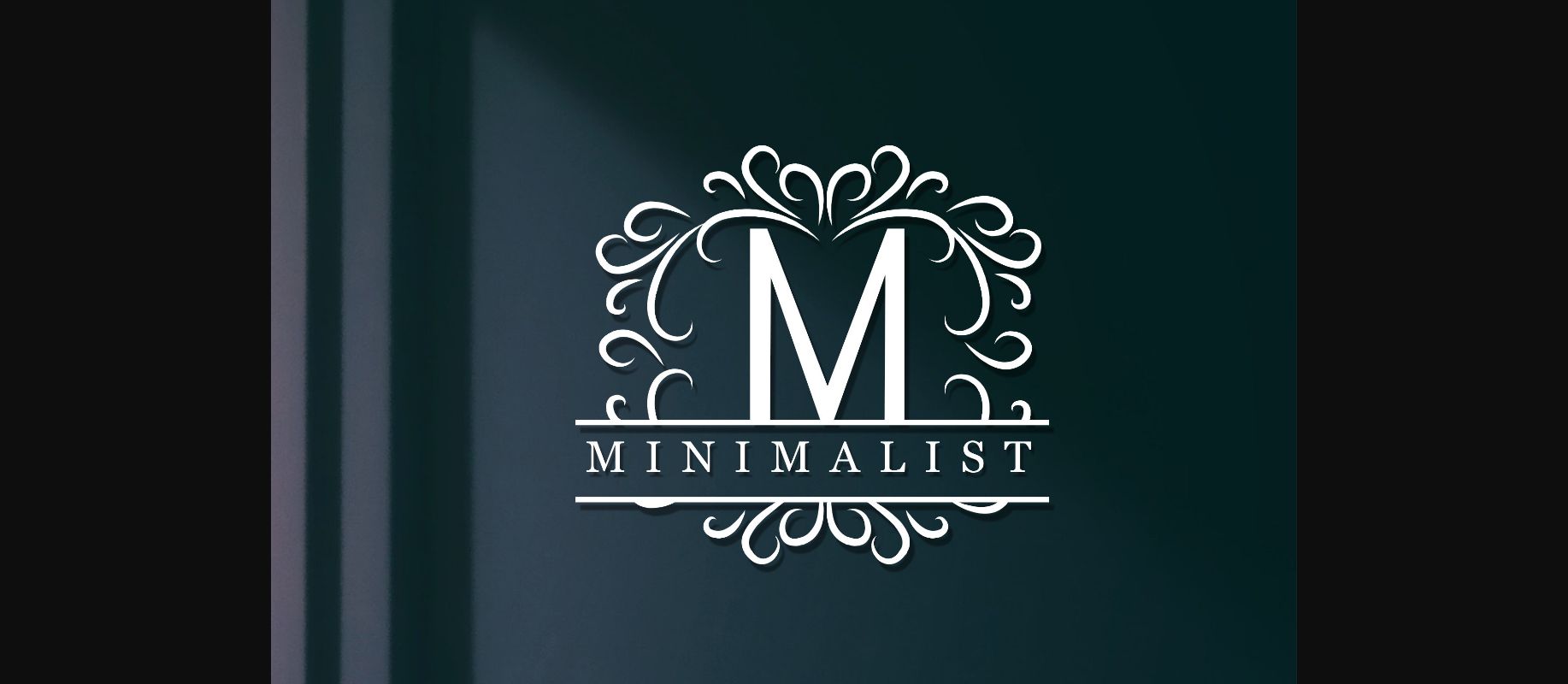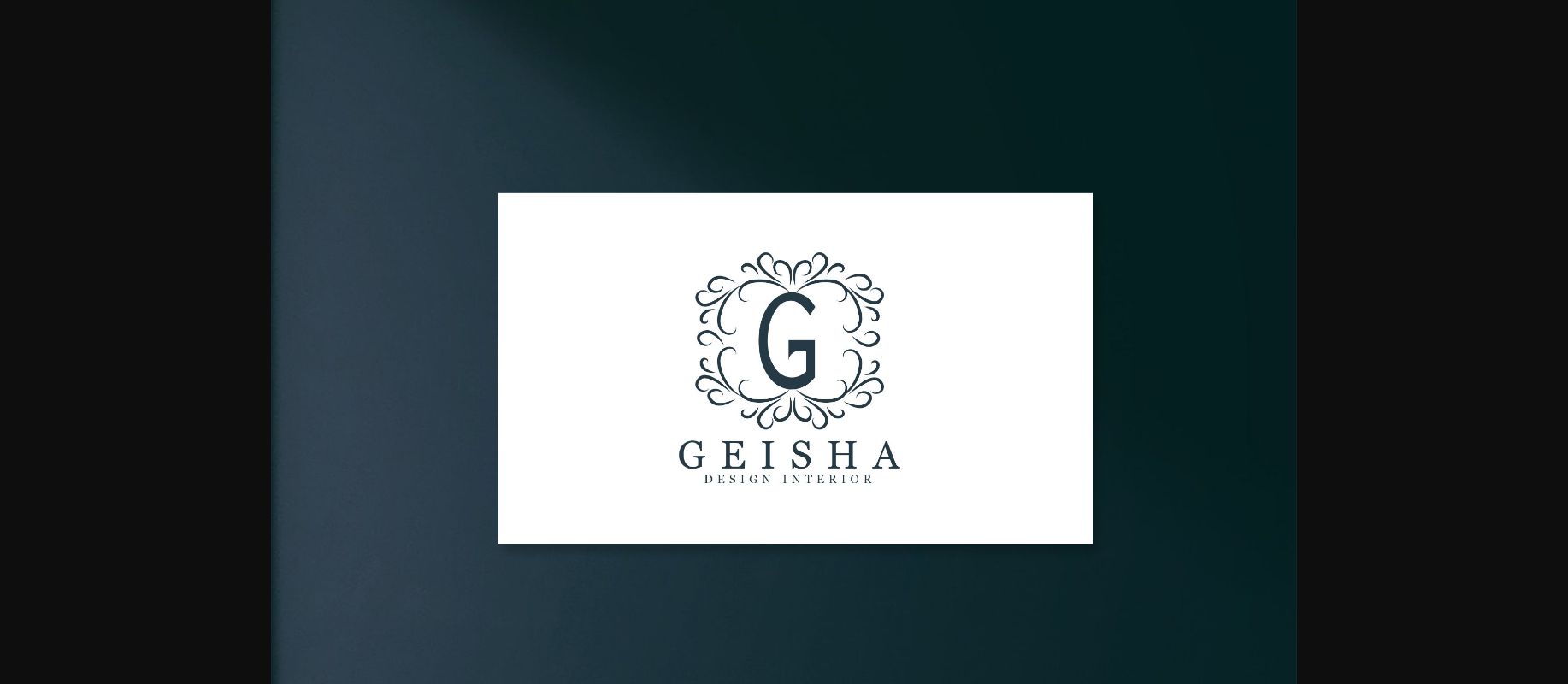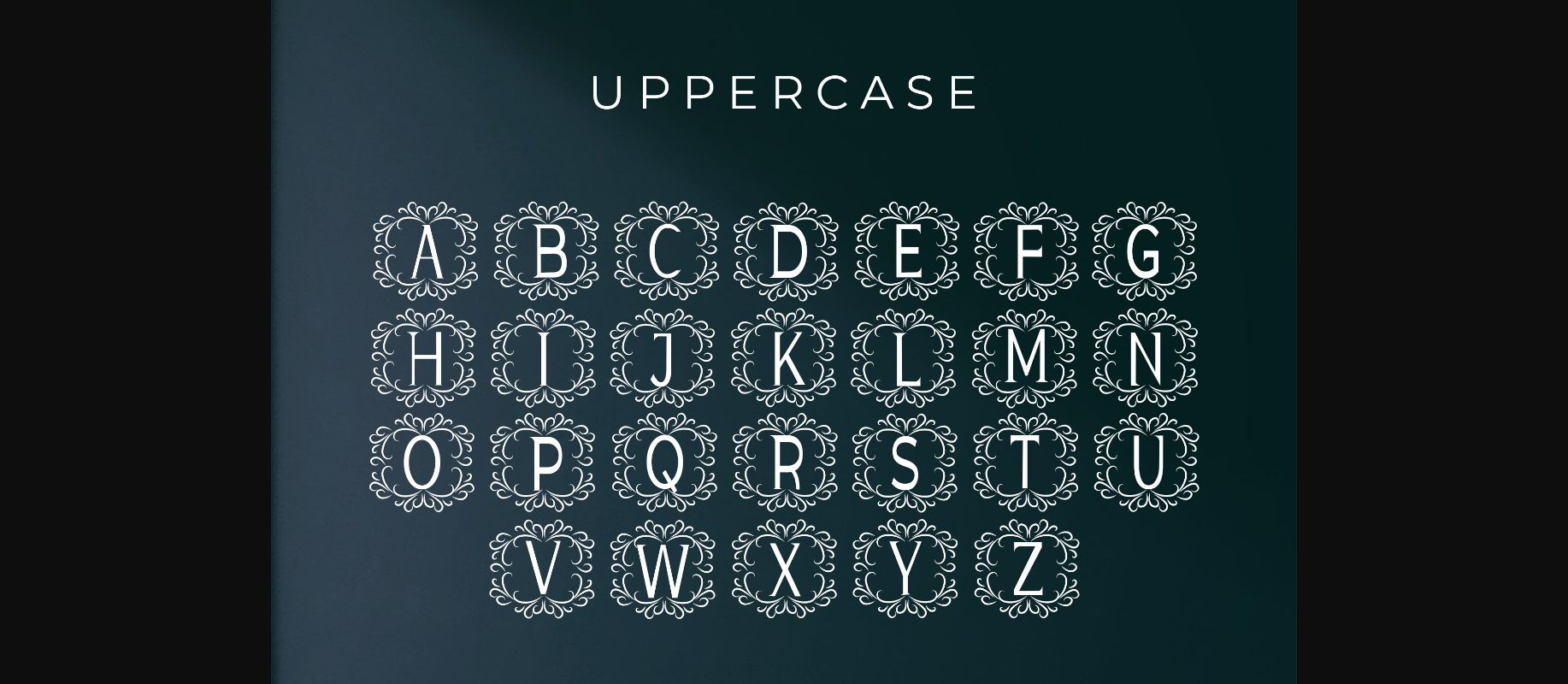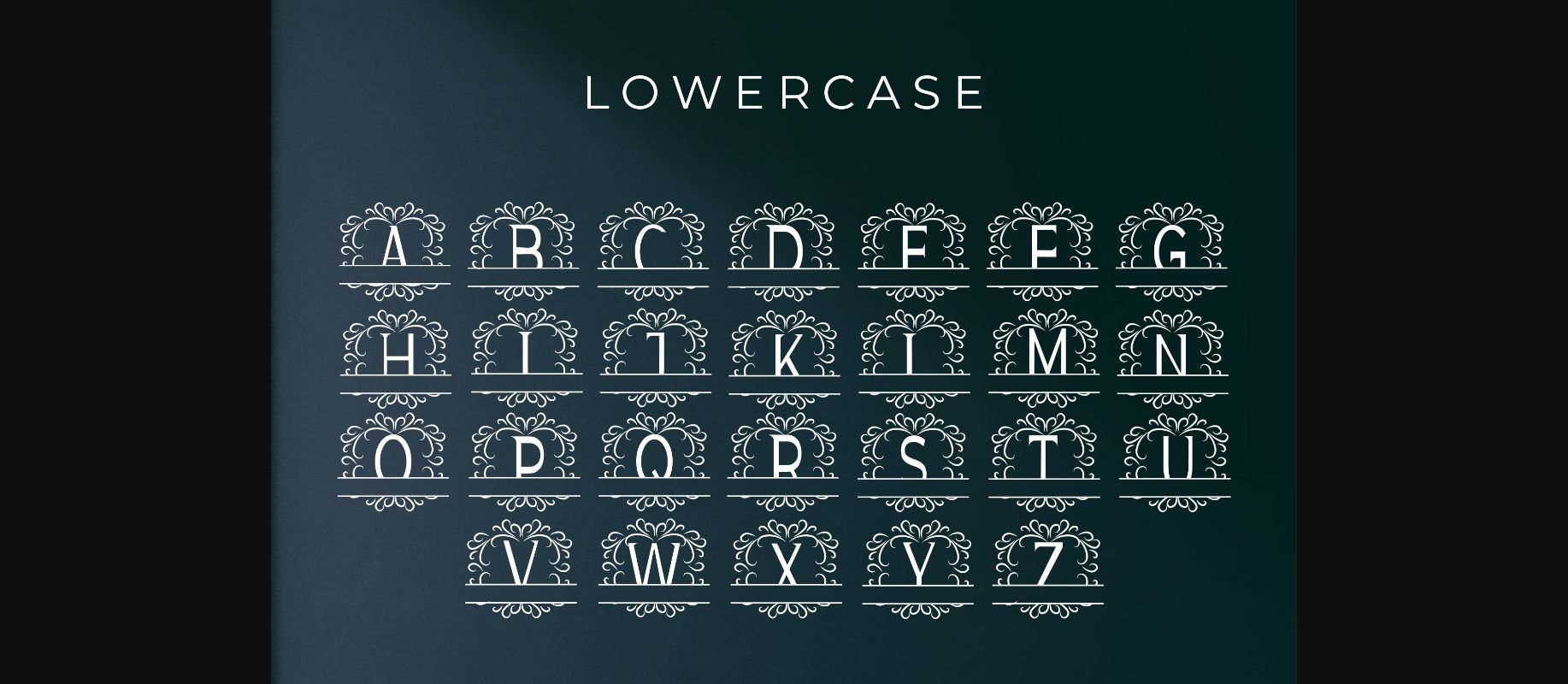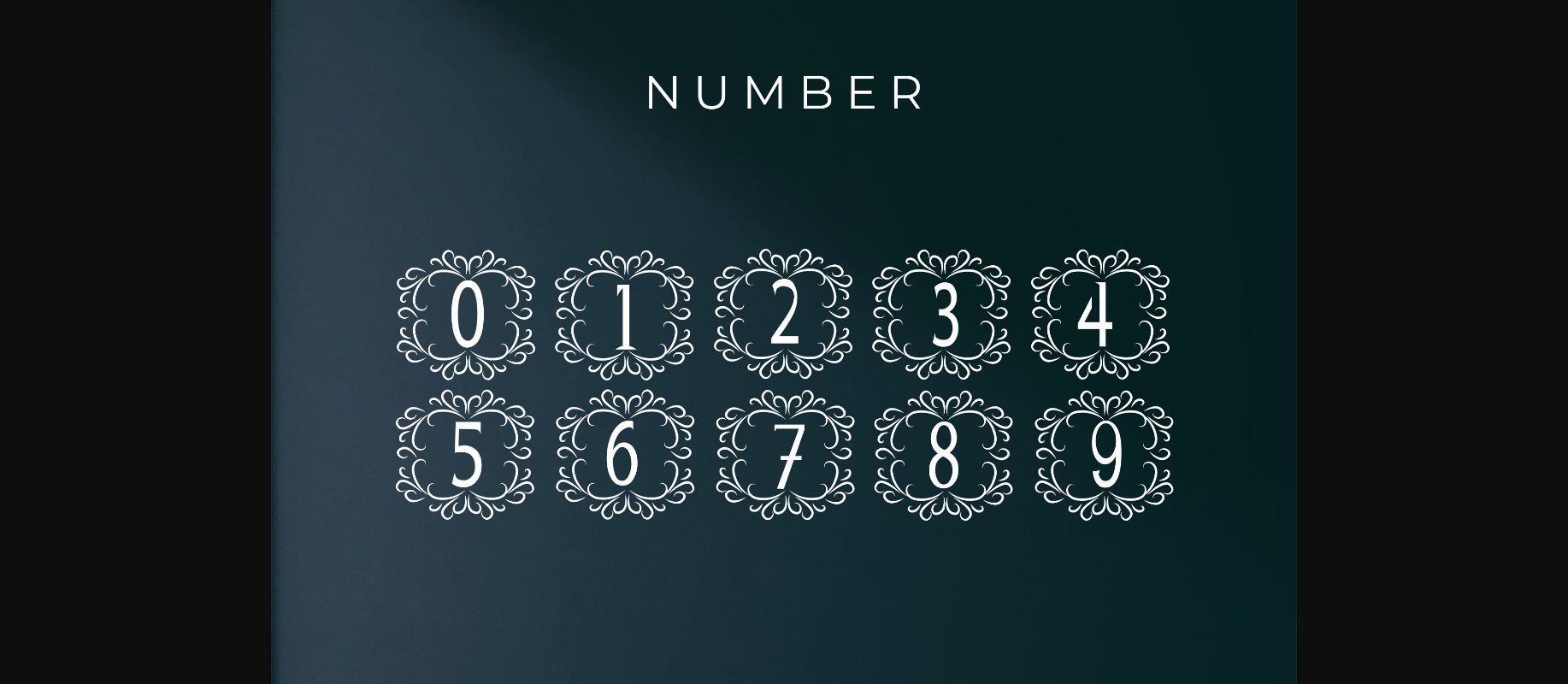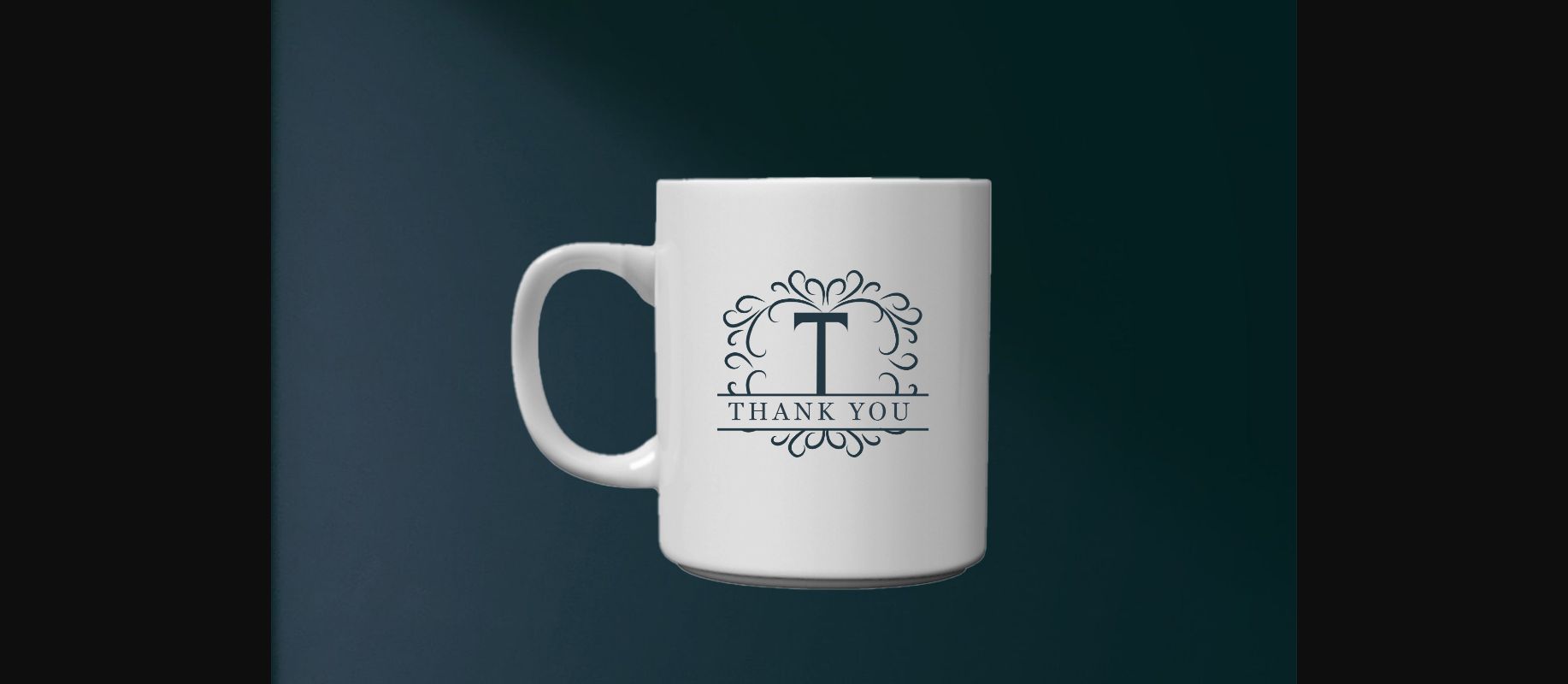
Minimalist Monogram Font
About Minimalist Monogram Font
Minimalist Monogram is a beautiful and charming decorative font. It looks beautiful on a variety of designs requiring a personalized style, such as wedding invitations, thank you cards, weddings, greeting cards, logos and so on.